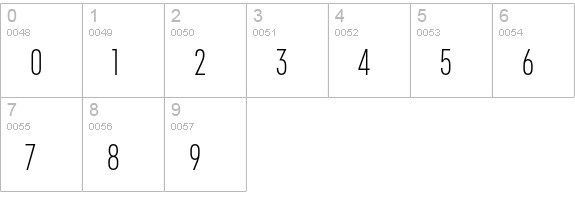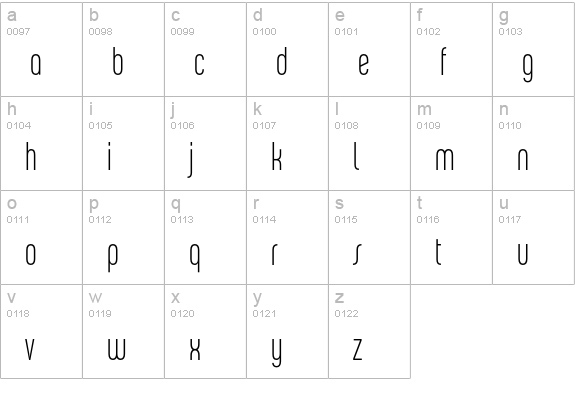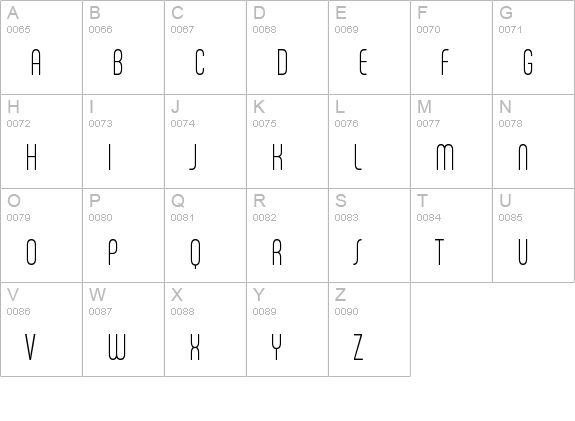
ChaletComprime MilanSeventy Font Details
ChaletComprime MilanSeventy font is a modern and sleek typeface that exudes elegance and sophistication. Its clean lines and stylish curves make it perfect for a wide range of design projects, from branding to editorial design. This font is versatile and can be used for both headings and body text, adding a touch of class to any project. What sets ChaletComprime MilanSeventy font apart is its unique blend of contemporary style and classic elegance. Its bold and eye-catching design will make your text stand out and leave a lasting impression on your audience. Whether you are designing a website, creating a poster, or working on a logo, this font is sure to elevate your project to the next level. Best of all, ChaletComprime MilanSeventy font is completely free to download at FontsMarket.com. So you can add this stunning font to your collection without having to worry about any additional costs. Don't miss out on the opportunity to enhance your designs with this premium typeface - download ChaletComprime MilanSeventy font today and take your projects to new heights!